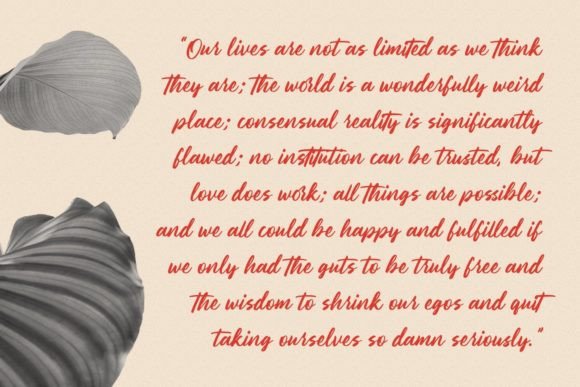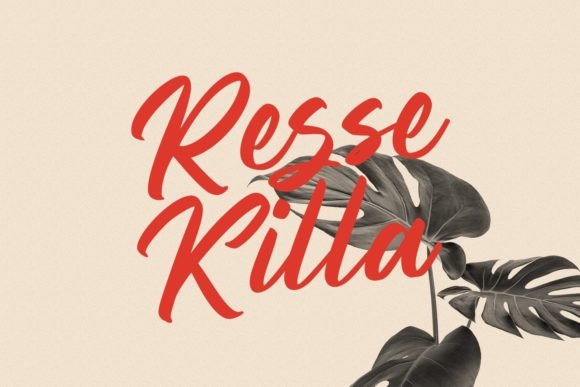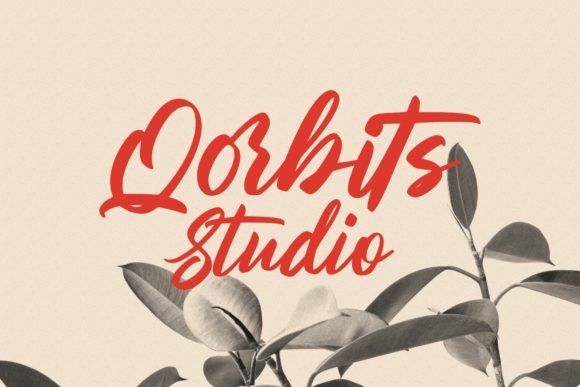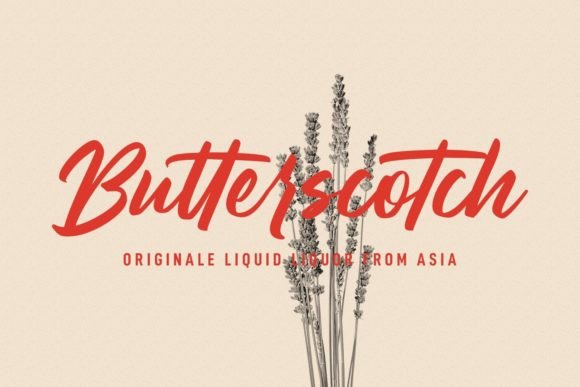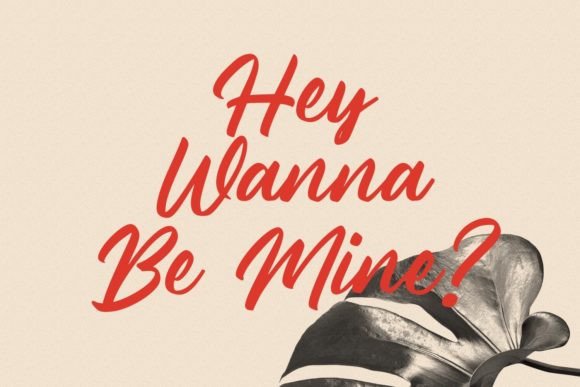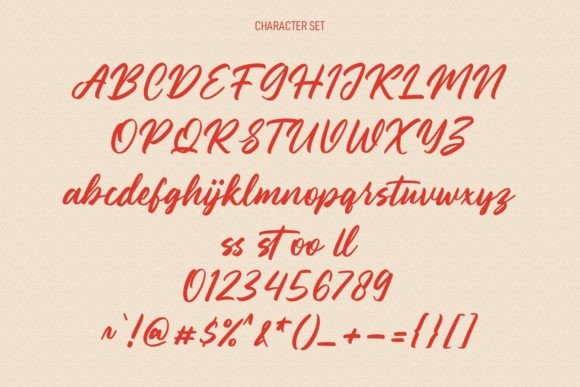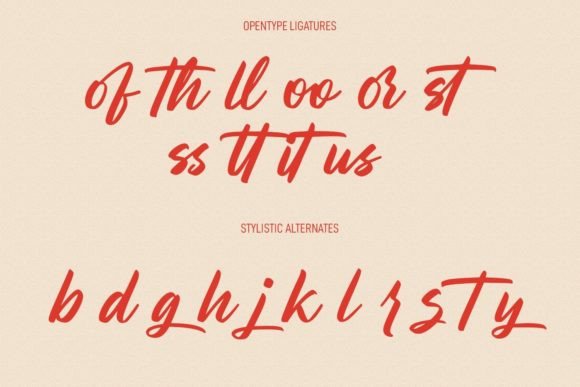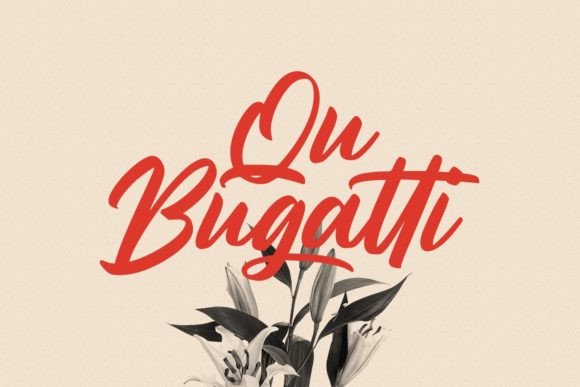
Nitrofury Font
About Nitrofury Font
Nitrofury is a freestyle signature script font. Fall in love with its incredibly distinct and timeless style and use it to create spectacular designs!